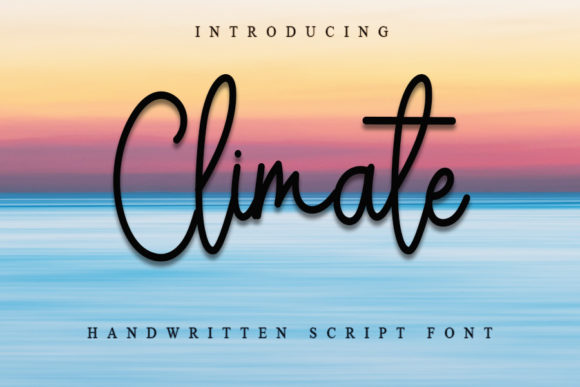
About Climate Font
Climate is a captivating and stylish handwritten font that seamlessly blends contemporary aesthetics with the timeless elegance of classic calligraphy. Its impeccable form and well-balanced letterforms create a harmonious and visually appealing typeface that adds a touch of sophistication to your projects.
With its modern and versatile design, Climate is an excellent choice for a wide range of creative endeavors. Whether you’re working on digital designs, print materials, or branding projects, this font has the ability to enhance the overall beauty and impact of your work.
Incorporating Climate into your projects can bring a breath of fresh air to your designs. Its contemporary atmosphere makes it suitable for a variety of applications, from website headers and social media graphics to posters and advertisements. Climate’s unique character shines through, captivating the viewer’s attention and leaving a lasting impression.
Climate’s calligraphic inspiration adds a sense of timelessness to the font’s design. The balanced and varied letterforms exude elegance and grace, making it a perfect choice for formal invitations, event materials, and other designs that require a touch of refinement. Whether you’re designing wedding invitations, certificates, or elegant menus, Climate elevates the visual appeal of these materials.
The font’s impeccable form ensures legibility across different sizes and mediums. From large headlines to smaller text blocks, Climate maintains its clarity and readability, making it suitable for both display and body text. This versatility allows you to use Climate for a wide range of design elements within your projects.
Climate’s elegant and contemporary aesthetic also makes it a great fit for branding and logo design. Its unique style can help create a memorable and distinctive brand identity that stands out in a competitive market. Whether applied to a luxury product, a fashion brand, or a creative agency, Climate adds a sense of sophistication and professionalism.
One of the standout features of Climate is its ability to enhance the overall beauty of your projects. Its balanced composition and carefully crafted details contribute to the visual appeal of any design, whether it’s a book cover, packaging, or promotional materials. Climate’s presence can elevate your creations, turning ordinary designs into true works of art.
In summary, Climate is a stylish handwritten font that effortlessly merges modern and classic elements to create a versatile and visually pleasing typeface. Its contemporary atmosphere, impeccable form, and balanced design make it a valuable asset for a wide range of projects, adding a touch of beauty and elegance to every creative endeavor.